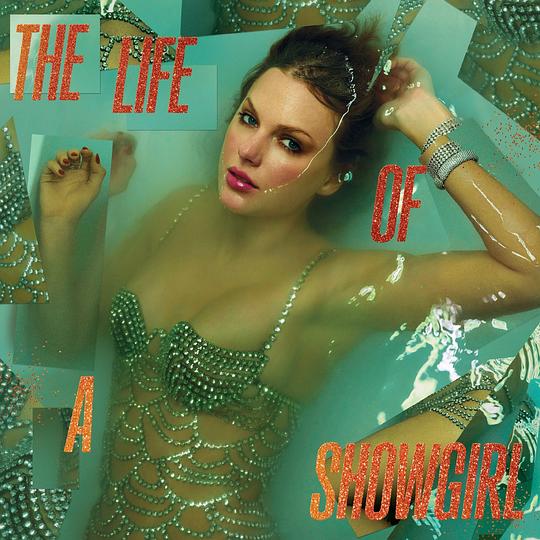
Create sophisticated text effects with Gazzetta Slanted typography inspired by theatrical performance and artistic elegance
About Taylor Swift - The Life of a Showgirl Font
Taylor Swift - The Life of a Showgirl album cover featuring Gazzetta Slanted typography
Official album cover for "The Life of a Showgirl" showcasing the elegant Gazzetta Slanted typography
"The Life of a Showgirl" marks a significant milestone in Taylor Swift's discography, showcasing her artistic maturation through both musical composition and visual design. The album's distinctive visual identity centers around Gazzetta Slanted, a refined condensed sans-serif created by the renowned TipoType foundry. This typeface exemplifies the intersection of classical typography principles with contemporary design sensibilities, making it an ideal choice for conveying the album's themes of performance, authenticity, and artistic growth. The font's slanted geometry creates a sense of movement and dynamism, reflecting the energy of live performance while maintaining the sophistication expected from premium album design. Gazzetta's balanced proportions and careful spacing ensure excellent legibility across different media, from digital platforms to physical merchandise. Our font generator captures these nuanced typographic qualities, enabling creators to incorporate the same level of design excellence into their own projects, whether for tribute content, artistic expression, or professional design work.